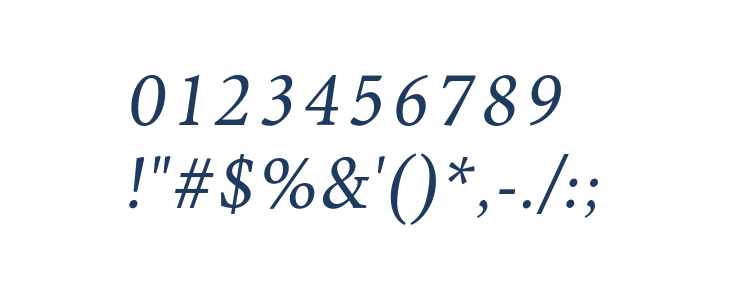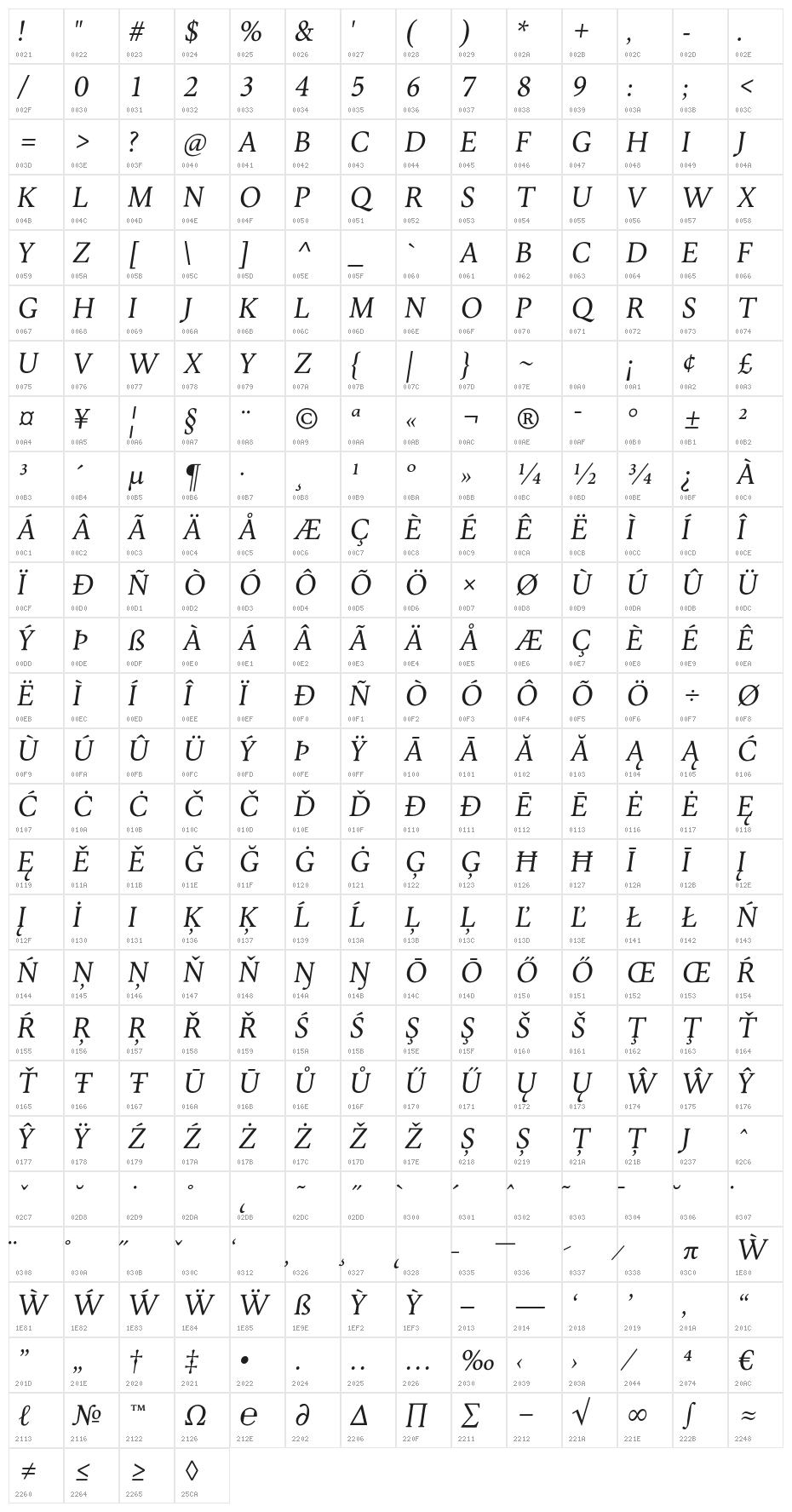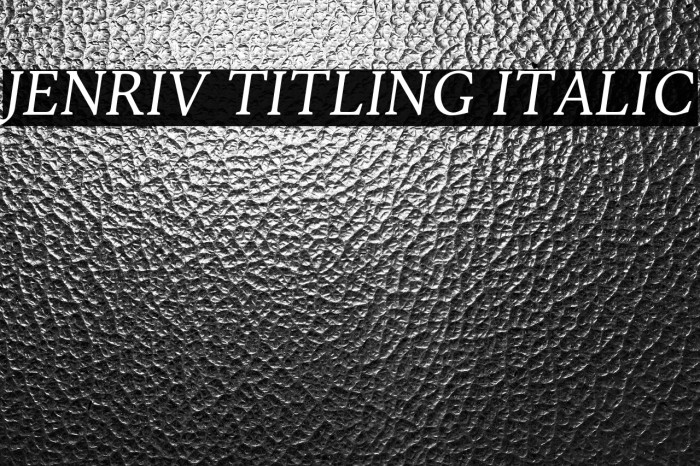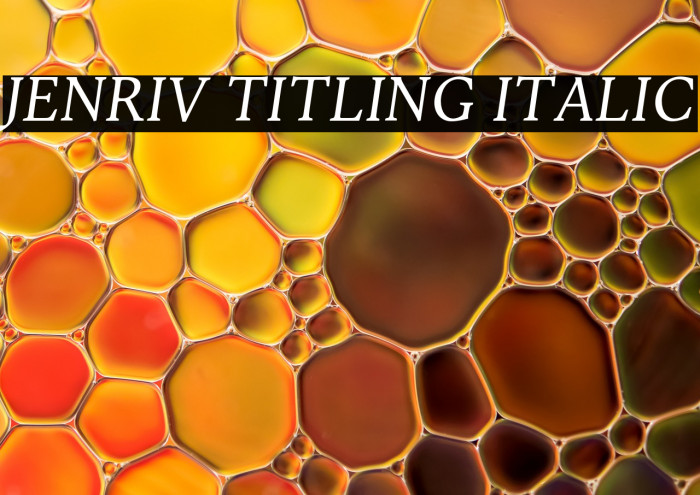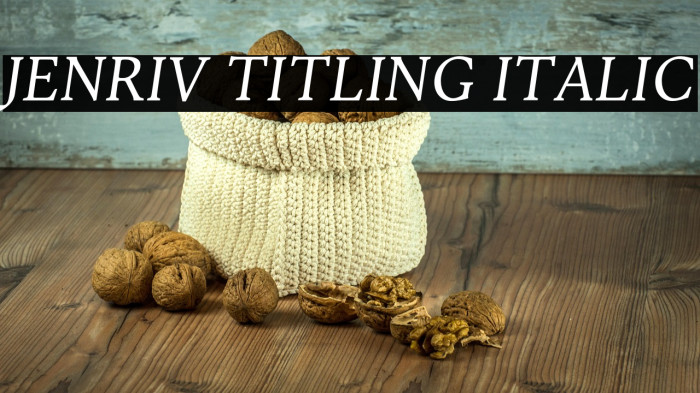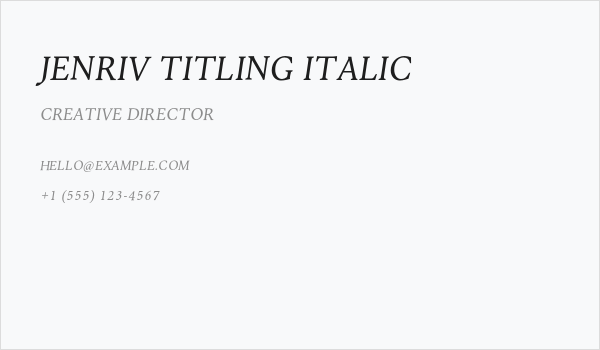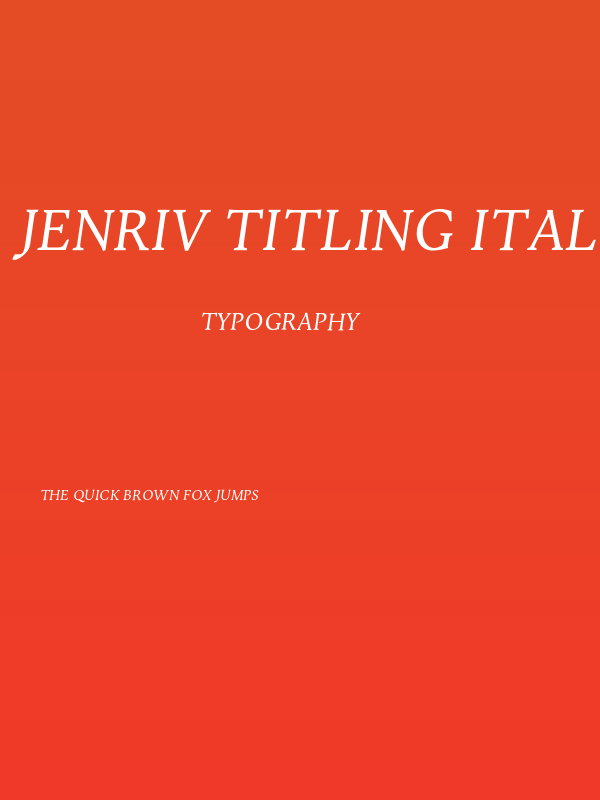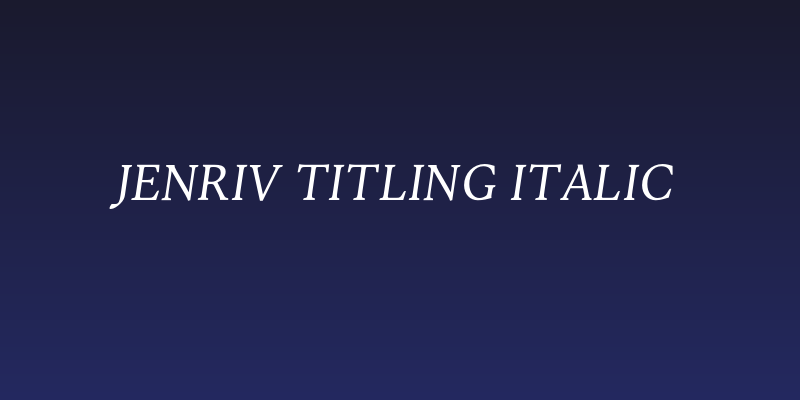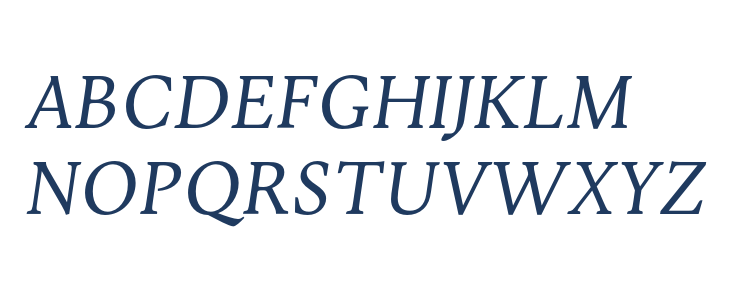
Jenriv Titling Italic Font
Jenriv Titling Italic Description
This font is a sophisticated serif typeface with an elegant italic slant, giving it a refined and classic appearance. The characters are well-proportioned with a slight inclination, enhancing its graceful and timeless look. The serifs are pronounced yet delicate, adding a touch of formality and tradition. The font maintains a consistent stroke width, providing a balanced and harmonious feel. Its overall design is suitable for conveying a sense of elegance and professionalism, making it ideal for formal documents, invitations, and branding that requires a touch of sophistication.
| Proposed Projects | Ideal for wedding invitations, formal documents, luxury branding, and editorial design. |